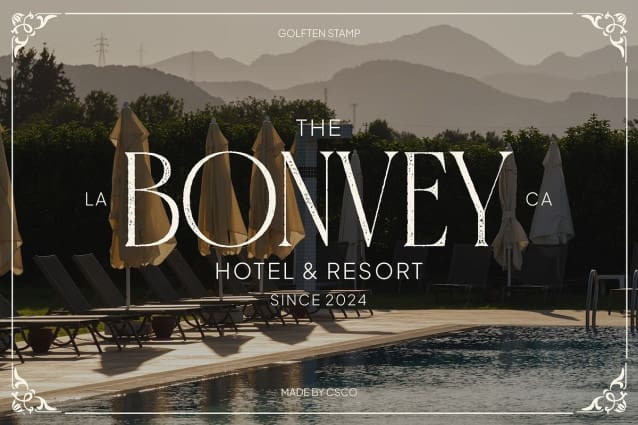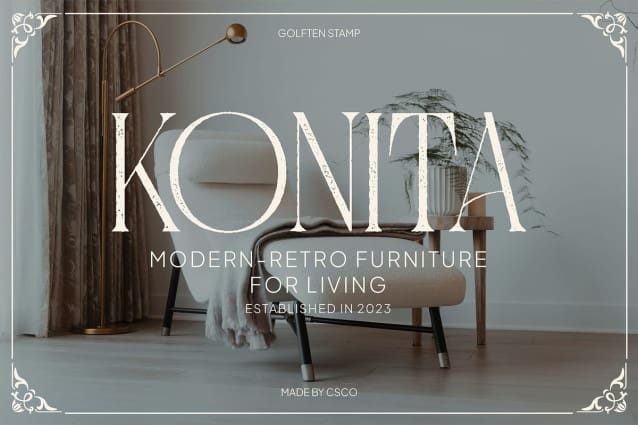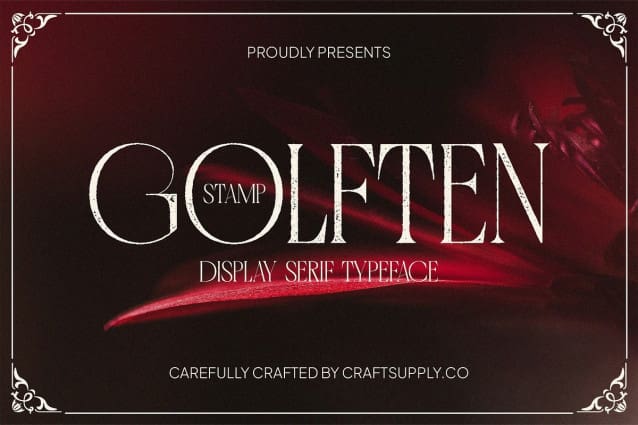
Golften Stamp Font
Golften Stamp Font is a modern serif font that marries the beauty and elegance of Art Nouveau with a distinctive stamp effect. Its graceful curves and delicate ornaments reflect the ornate charm of the Art Nouveau style, while the stamp effect introduces a rough, uneven texture that lends a vintage, handcrafted quality to the design.
Vintage Texture with Unique Character The stamp effect in Golften Stamp adds a unique, textured appearance that evokes a sense of nostalgia and authenticity. This rough, uneven quality enhances the font’s vintage feel, making it stand out with a distinctive character that is both elegant and captivating.
Ideal for Luxury Branding and Editorial Design Perfect for high-end branding, editorial layouts, and luxury marketing materials, Golften Stamp offers a sophisticated and alluring aesthetic. Its blend of Art Nouveau elegance and vintage texture ensures a refined and memorable visual impact, ideal for projects that aim to convey both beauty and exclusivity.
Versatile for Elegant and Captivating Designs Golften Stamp’s combination of ornate design and vintage texture makes it versatile for various design applications. From luxurious branding to engaging editorial projects, this font provides a stunning and sophisticated look that enhances the overall visual appeal of your work.